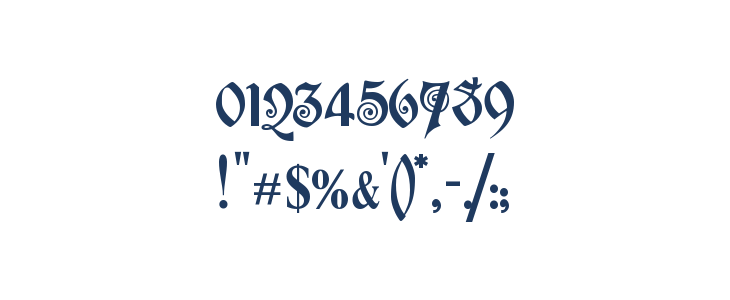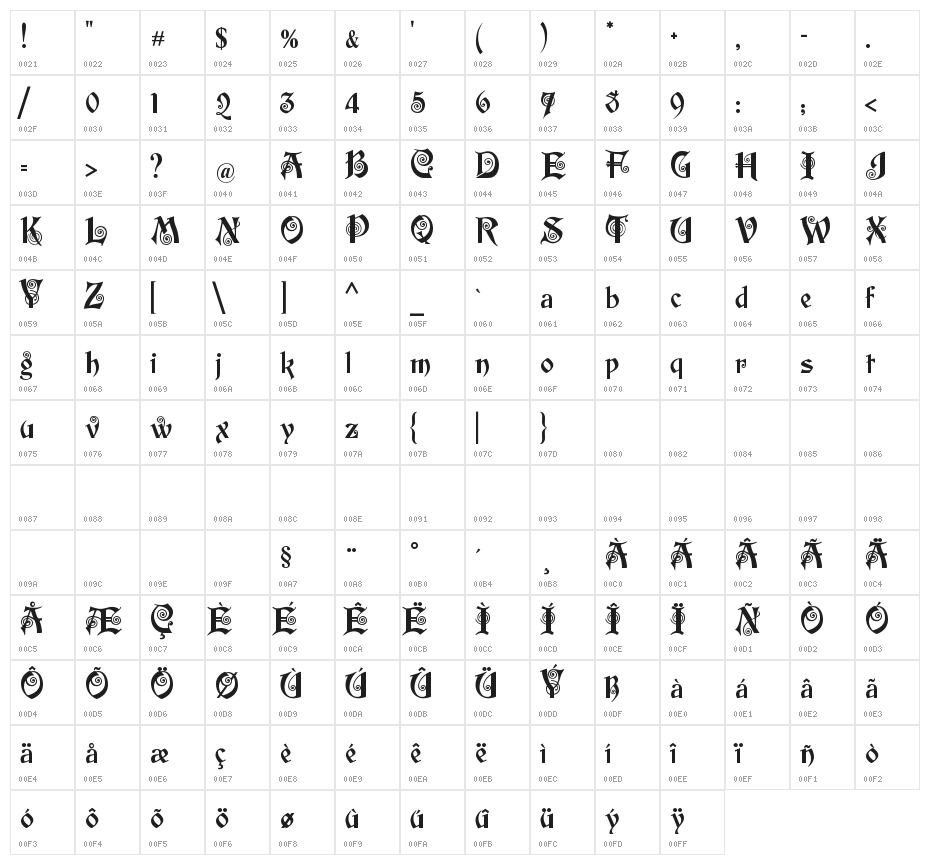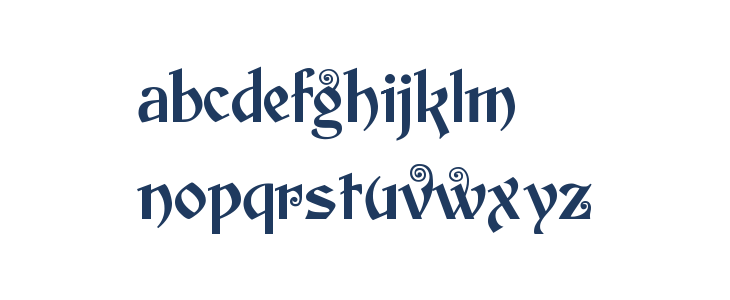
Edison Font
Edison Description
This font features a highly decorative and artistic style, characterized by intricate swirls and embellishments integrated into the letterforms. The uppercase letters are particularly ornate, with each character displaying unique flourishes that add a sense of movement and elegance. The lowercase letters maintain a similar decorative theme but are slightly more subdued, allowing for readability while still offering visual interest. The numerals and special characters continue the ornate design, ensuring consistency throughout the character set. This font is ideal for projects that require a touch of sophistication and creativity, such as invitations, posters, or branding materials that aim to stand out.